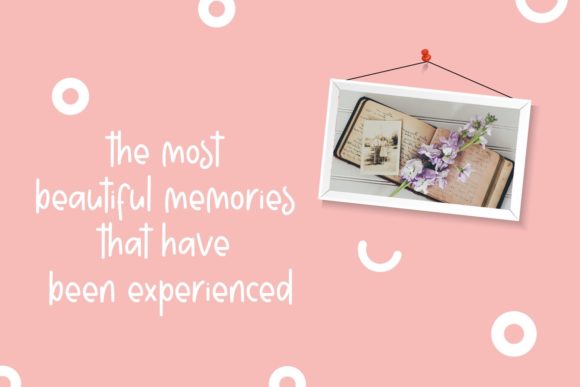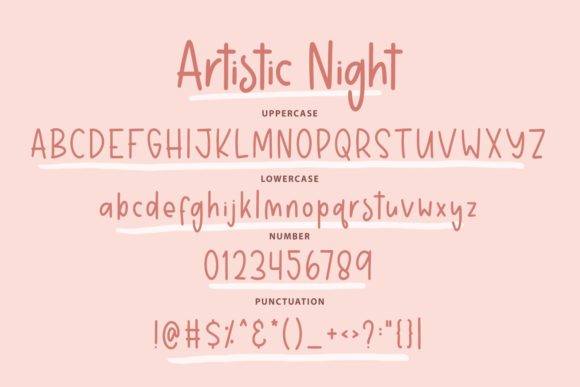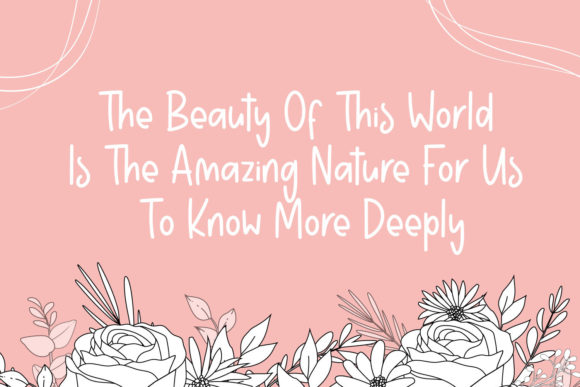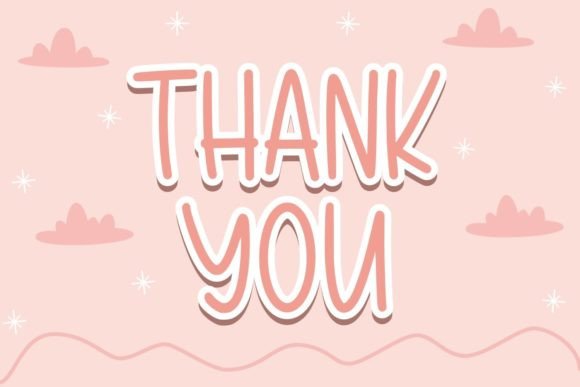
Introducing Artistic Night Font: Elevate Your Designs with a Cool and Casual Display Font
Are you a designer or crafter looking for a font that can add a touch of personality to your creations? Look no further than Artistic Night Font, a cool and casual display font that’s perfect for a wide range of projects. In this article, we’ll take a closer look at Artistic Night Font, its features, and how it can elevate your designs.
What is Artistic Night Font?
Artistic Night Font is a modern display font that’s designed to add a touch of sophistication and elegance to your designs. With its unique and artistic style, this font is perfect for creating eye-catching headlines, titles, and captions. Whether you’re working on a branding project, a website, or a craft project, Artistic Night Font is an excellent choice.
Key Features of Artistic Night Font
So, what makes Artistic Night Font so special? Here are some of its key features:
- Cool and Casual Style: Artistic Night Font has a cool and casual style that’s perfect for creating designs that are relaxed and laid-back.
- Display Font: This font is specifically designed as a display font, making it perfect for headlines, titles, and captions.
- Unique and Artistic: Artistic Night Font has a unique and artistic style that will add a touch of personality to your designs.
- Versatile: This font is versatile and can be used for a wide range of projects, from branding and advertising to crafting and DIY projects.
Benefits of Using Artistic Night Font
So, why should you use Artistic Night Font in your designs? Here are some of the benefits:
- Elegant and Sophisticated: Artistic Night Font adds an elegant and sophisticated touch to your designs.
- Unique and Creative: This font is unique and creative, making it perfect for designers and crafters who want to stand out.
- Versatile: This font is versatile and can be used for a wide range of projects.
Tips and Tricks for Using Artistic Night Font
Here are some tips and tricks for using Artistic Night Font:
- Experiment with Different Sizes: Experiment with different sizes to find the perfect fit for your design.
- Play with Colors: Play with different colors to find the perfect match for your design.
- Use it for Headlines and Titles: Use Artistic Night Font for headlines and titles to add a touch of elegance and sophistication.
- Pair it with Other Fonts: Pair Artistic Night Font with other fonts to create a unique and creative look.
In conclusion, Artistic Night Font is a cool and casual display font that’s perfect for designers and crafters who want to add a touch of personality to their creations. With its unique and artistic style, this font is versatile and can be used for a wide range of projects. Whether you’re working on a branding project, a website, or a craft project, Artistic Night Font is an excellent choice.